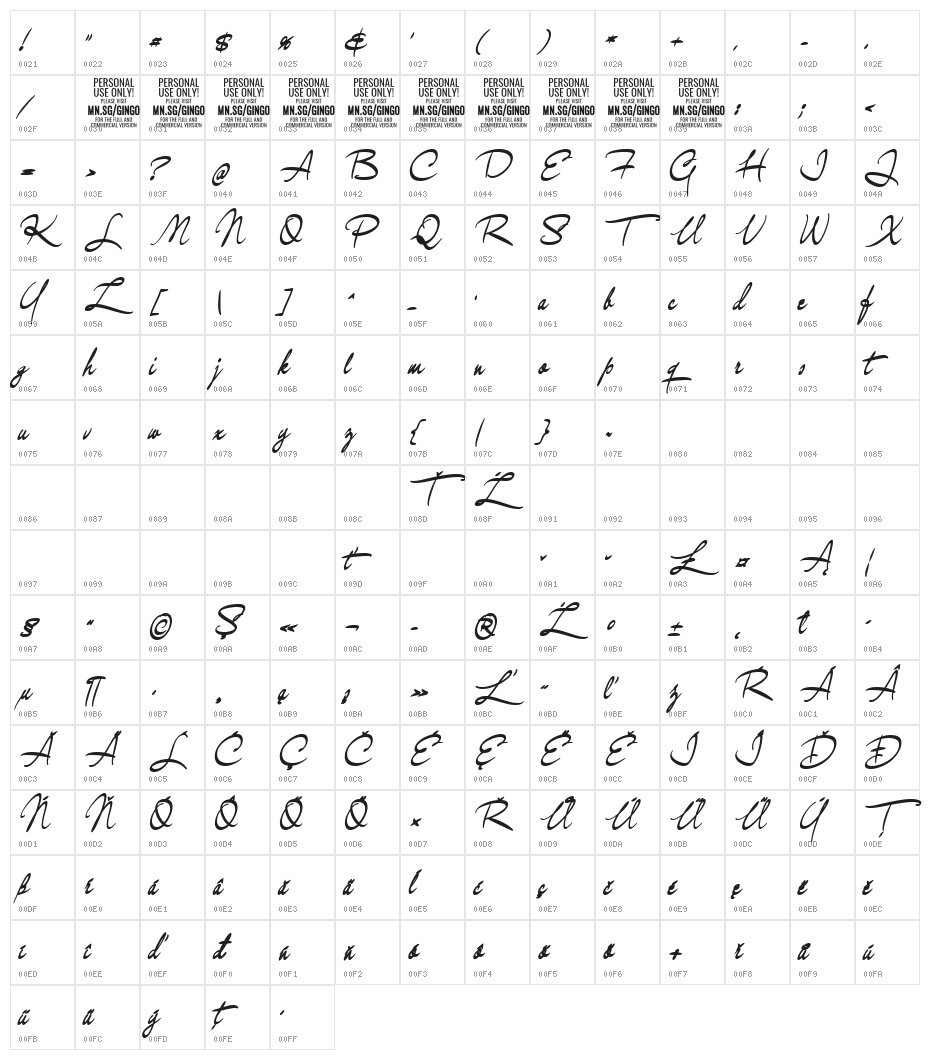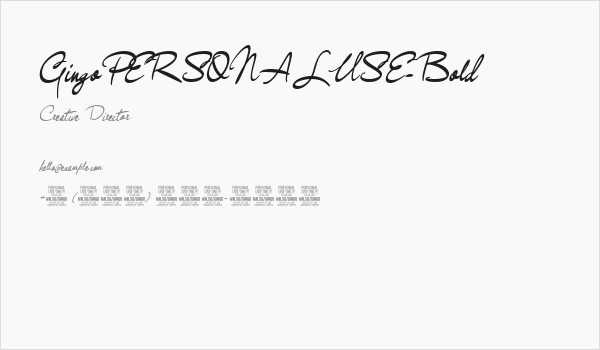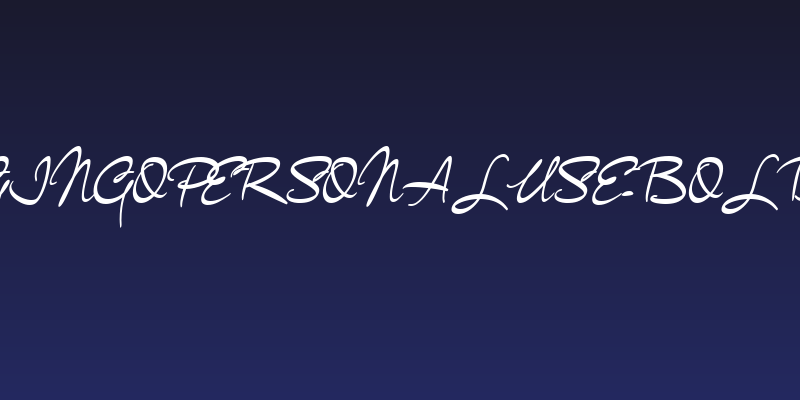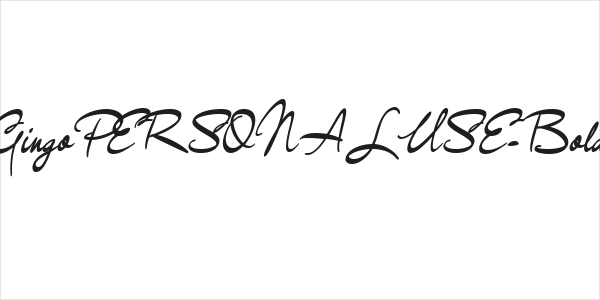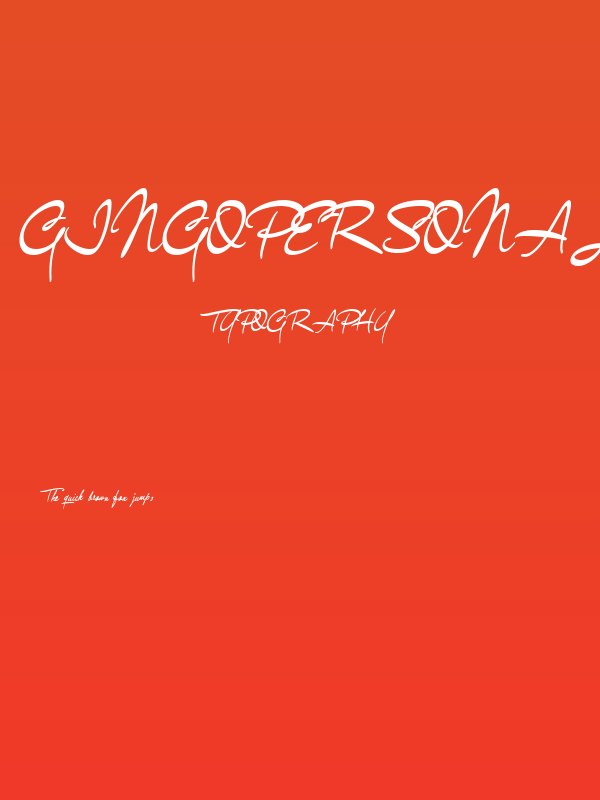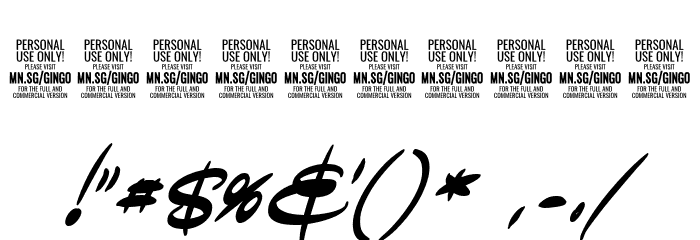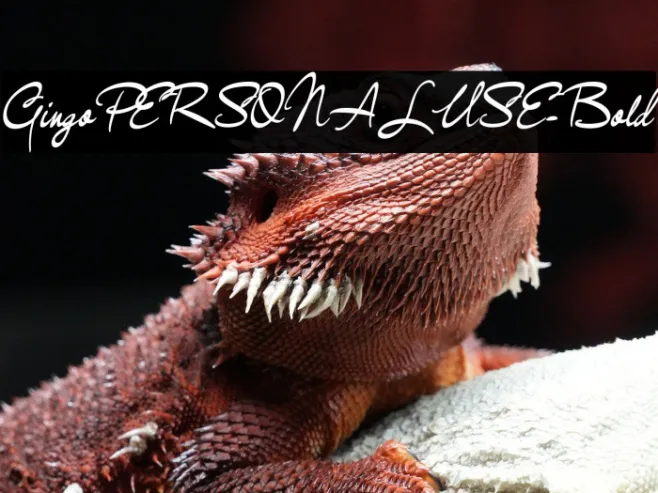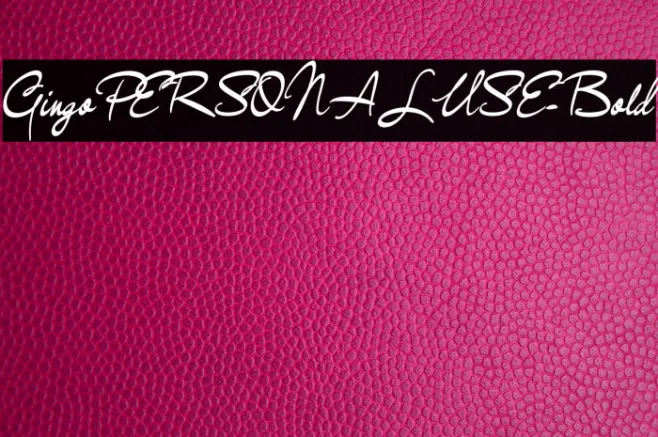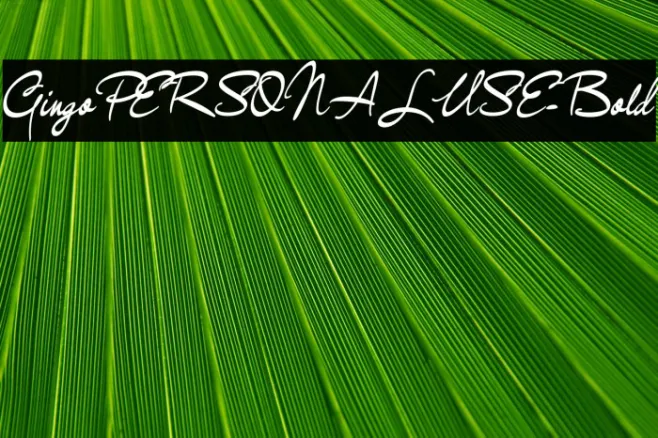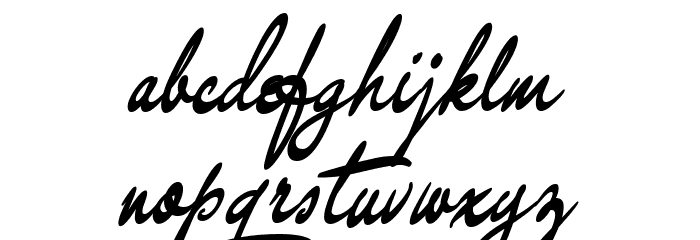
GingoPERSONALUSE-Bold Font
GingoPERSONALUSE-Bold Description
This font features a dynamic and expressive script style, characterized by fluid, cursive strokes that convey a sense of elegance and movement. The uppercase letters are elongated and slightly slanted, giving them a sophisticated flair, while the lowercase letters maintain a consistent flow with a more compact form. The numerals and special characters are designed to match the overall cursive aesthetic, ensuring a cohesive look across all text elements. The font's bold weight adds to its striking appearance, making it suitable for attention-grabbing designs.
| Overall Style | Elegant, Expressive |
| Use Case | Logos, Invitations, Branding |
| Proposed Projects | Ideal for wedding invitations, branding, logos, and elegant packaging designs. |